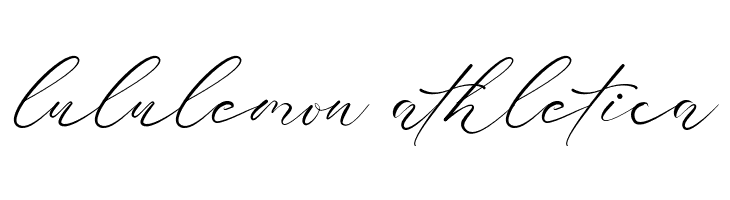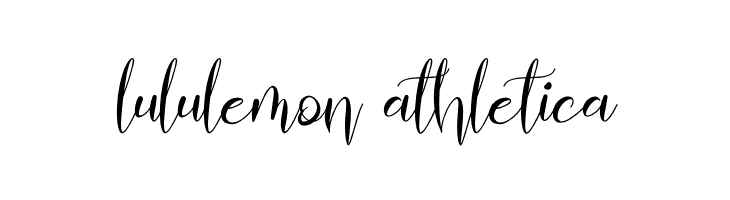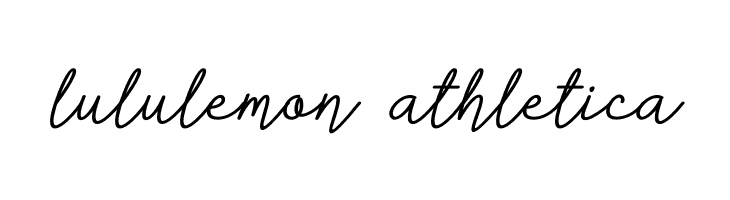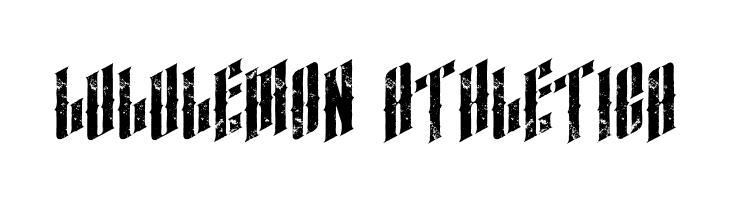
A flowing, cursive script font with elegant, connected strokes.
An elegant, cursive handwritten font with flowing, decorative strokes.
An elegant, flowing script font with intricate loops and a sophisticated style.
A bold, italic grunge font with a distressed texture and high contrast.
A bold, italicized grunge font with a distressed, vintage look.
A modern and artistic font with flowing curves and sharp edges.
An elegant script font with fluid, cursive strokes and a sophisticated appearance.
A lively, handwritten font with fluid strokes and artistic flair.
A modern, geometric sans-serif font with clean lines and high legibility.
A decorative and modern font with whimsical uppercase and bold lowercase letters.